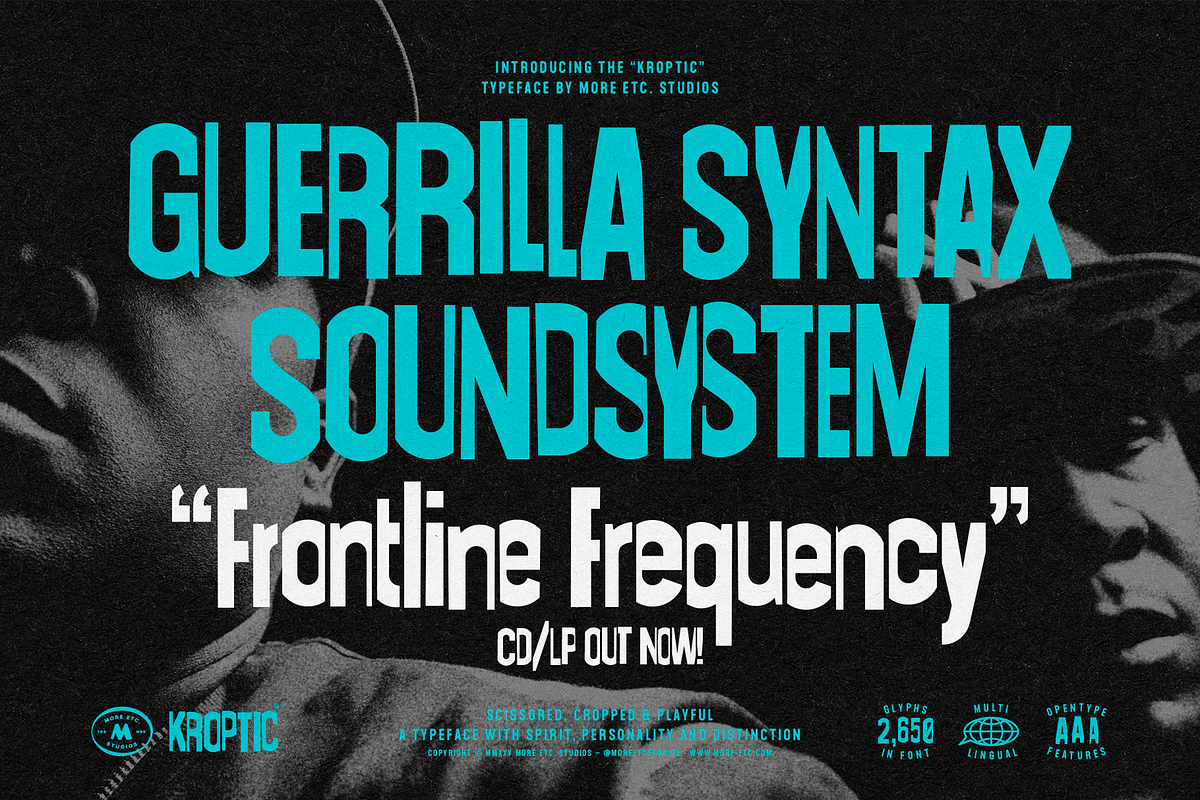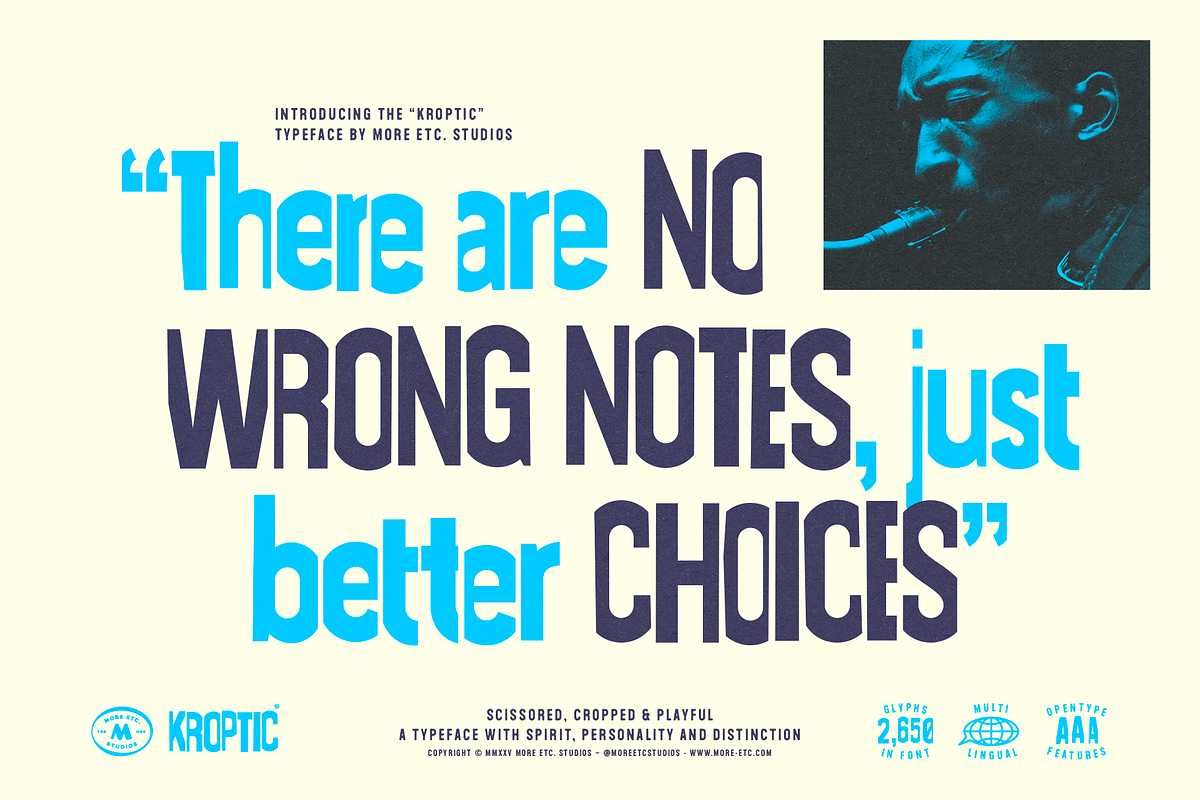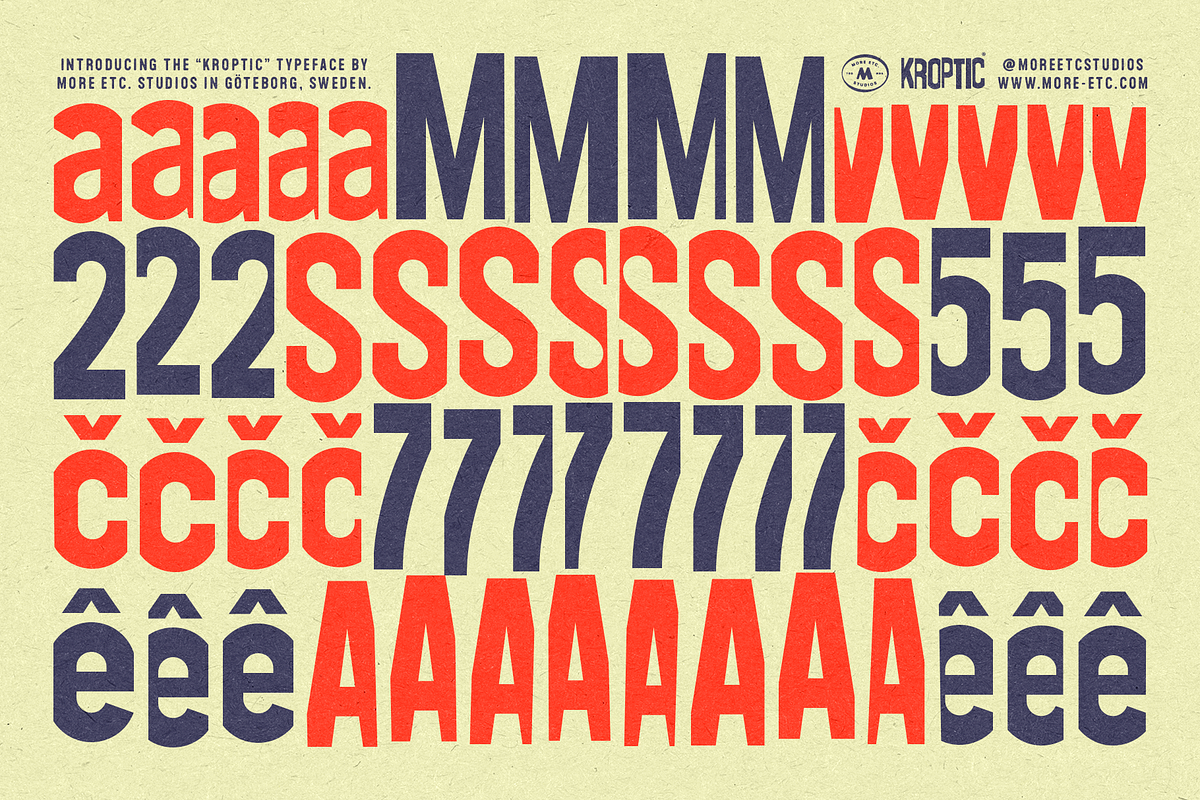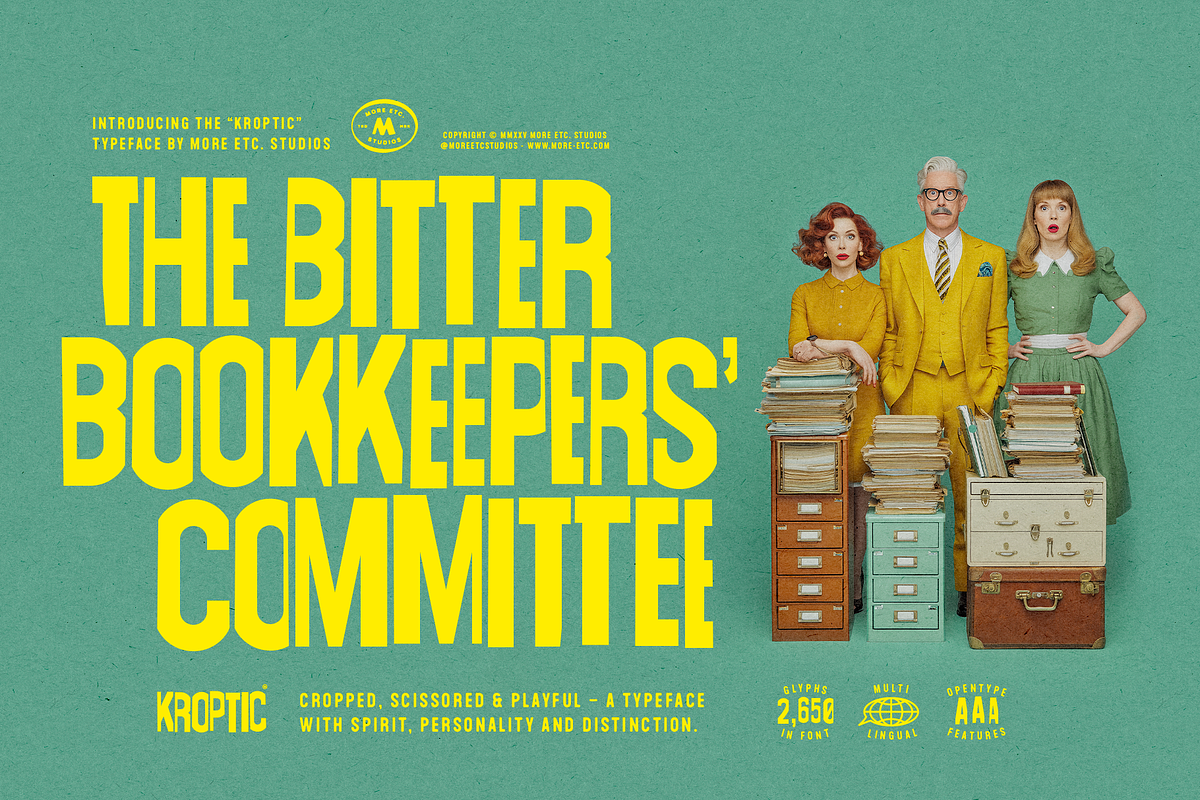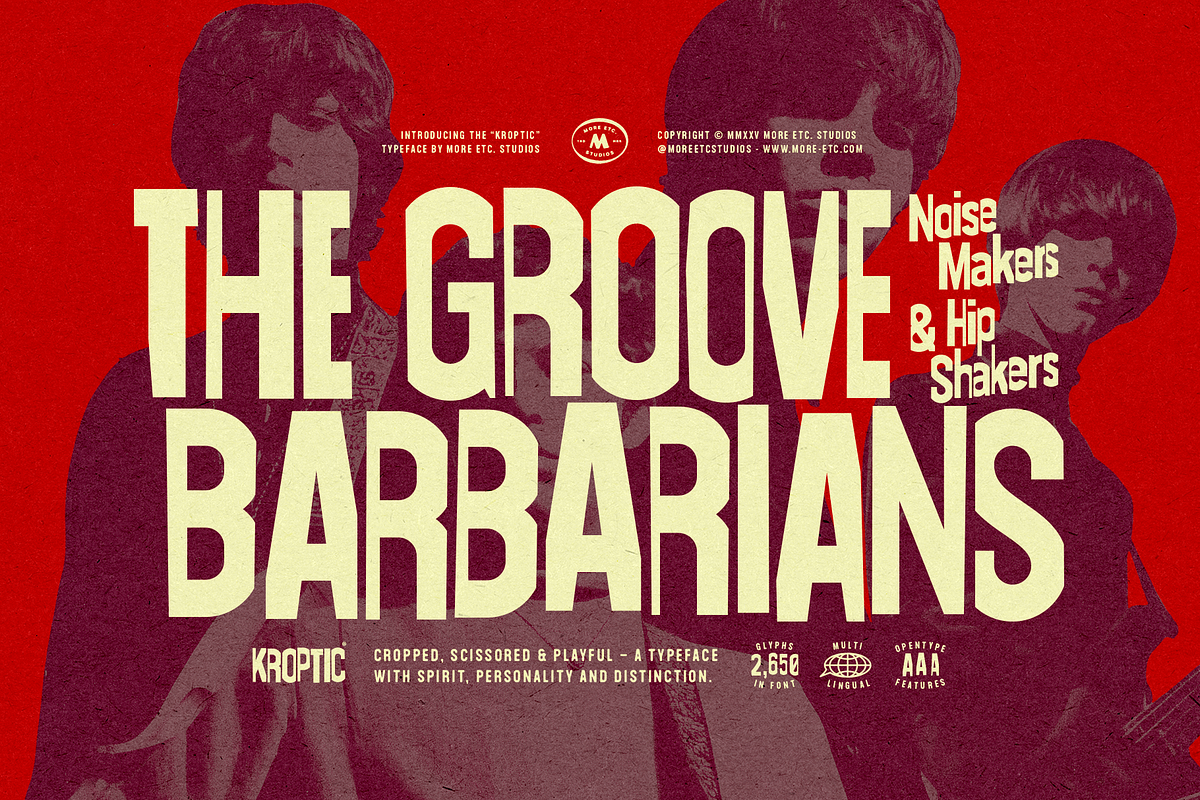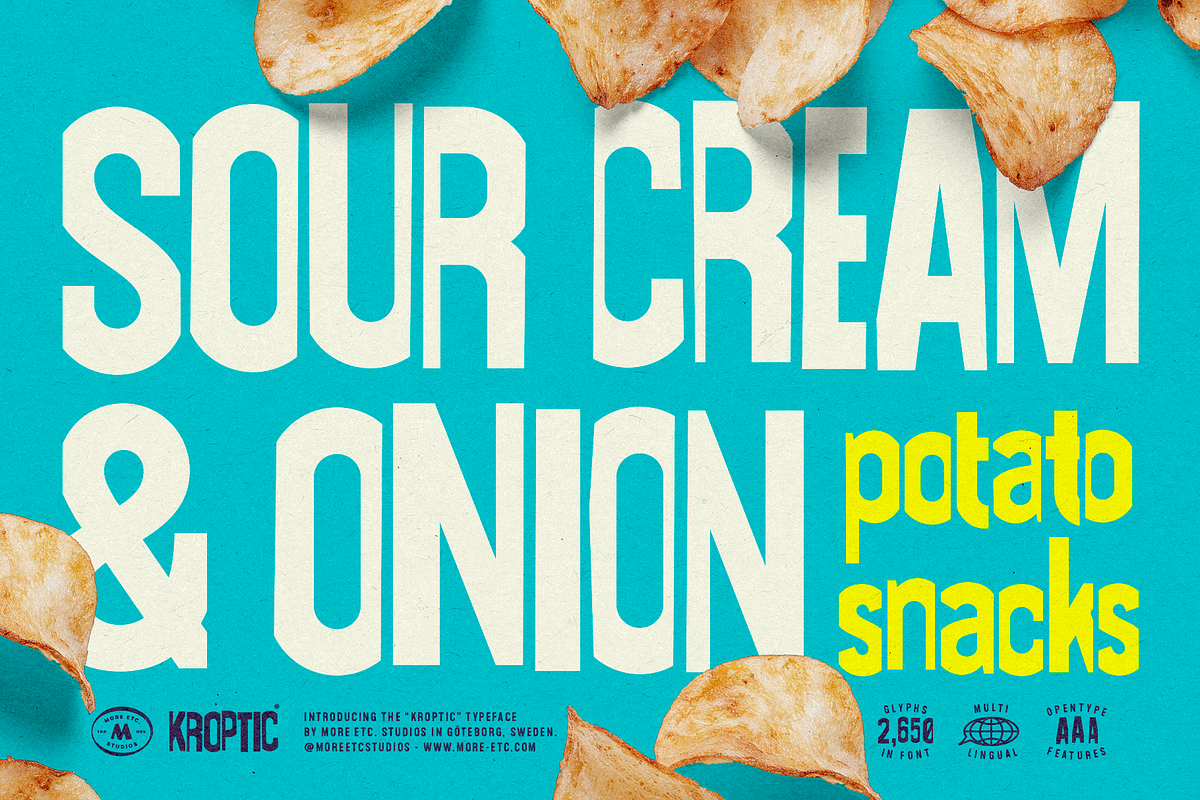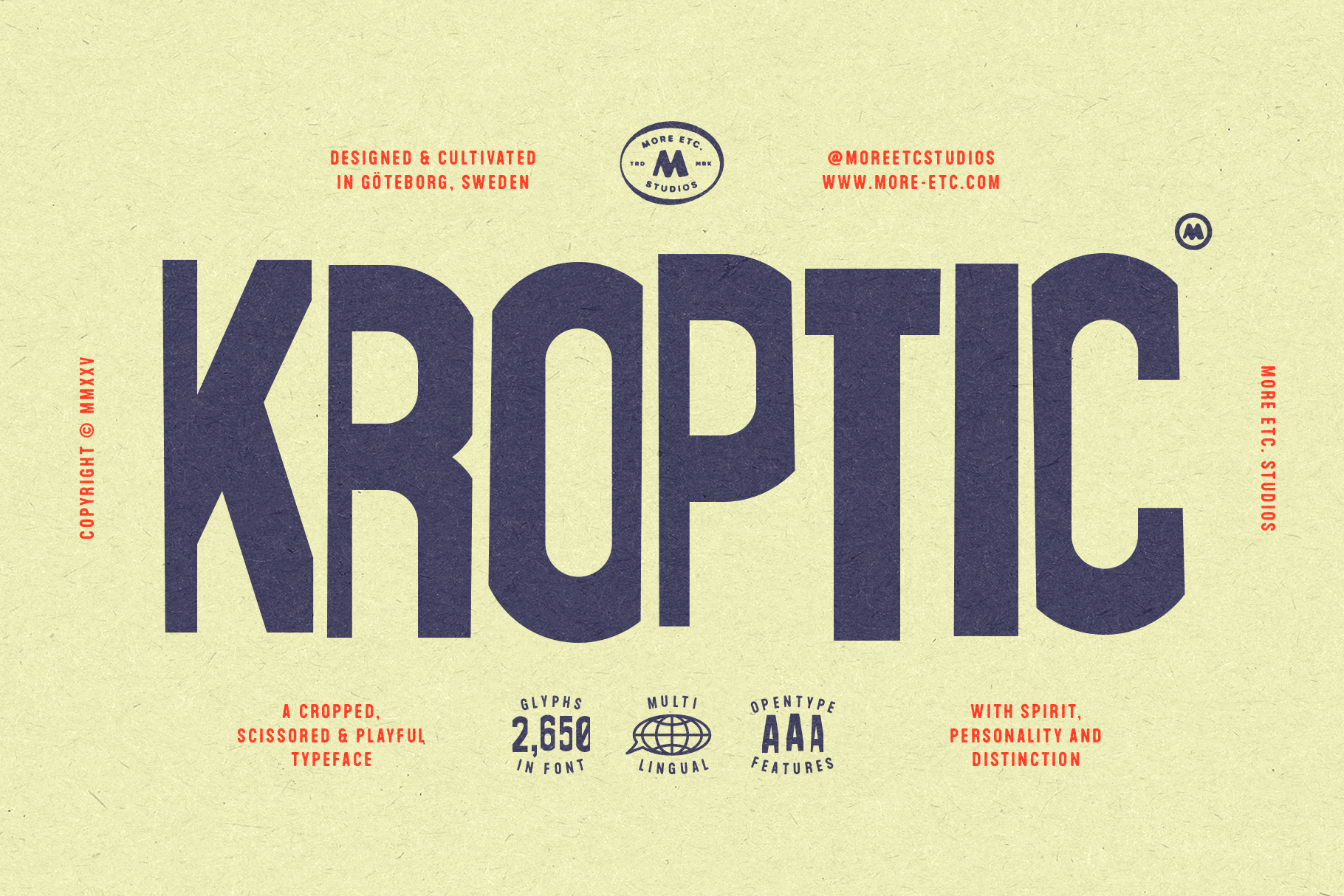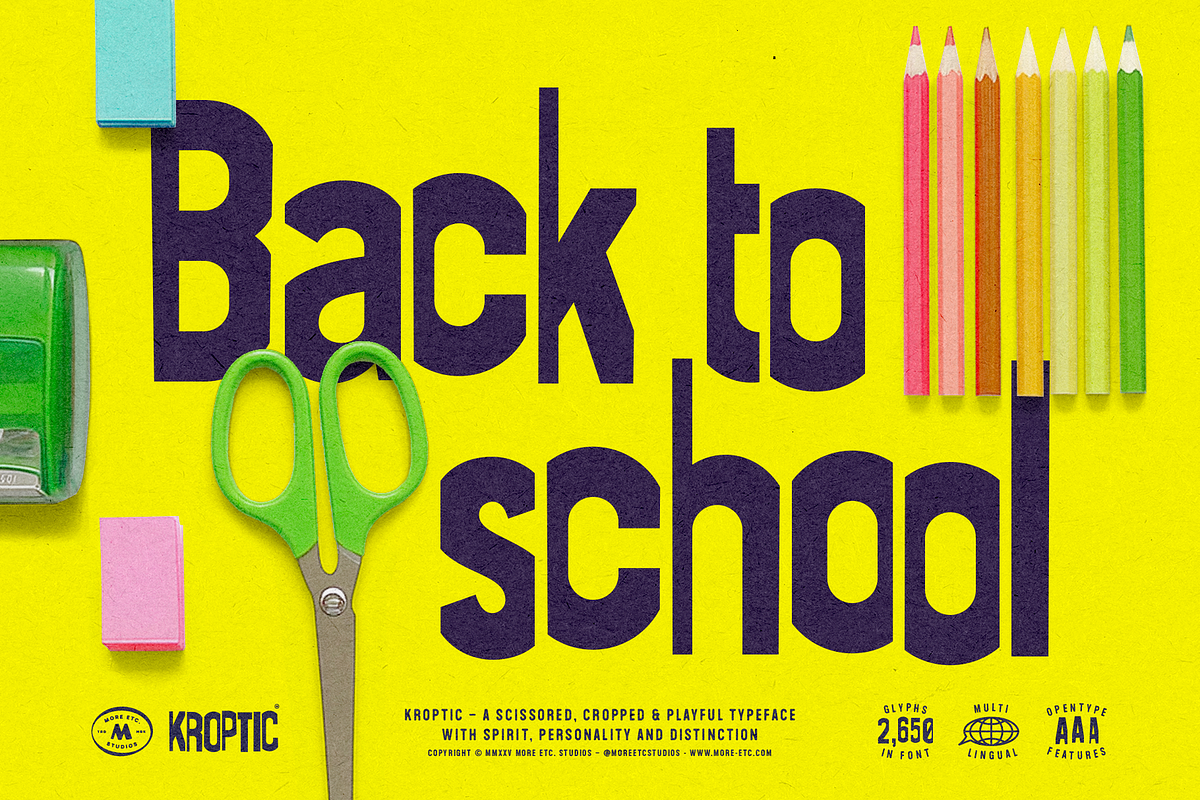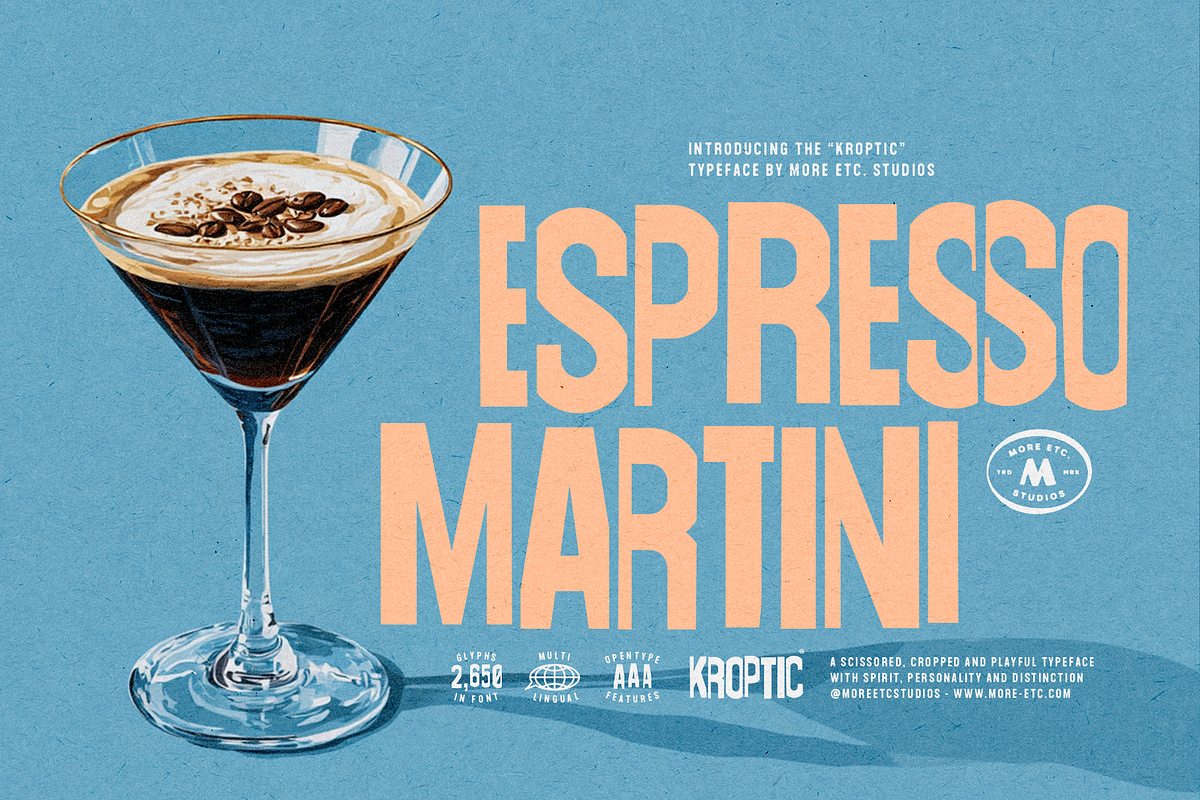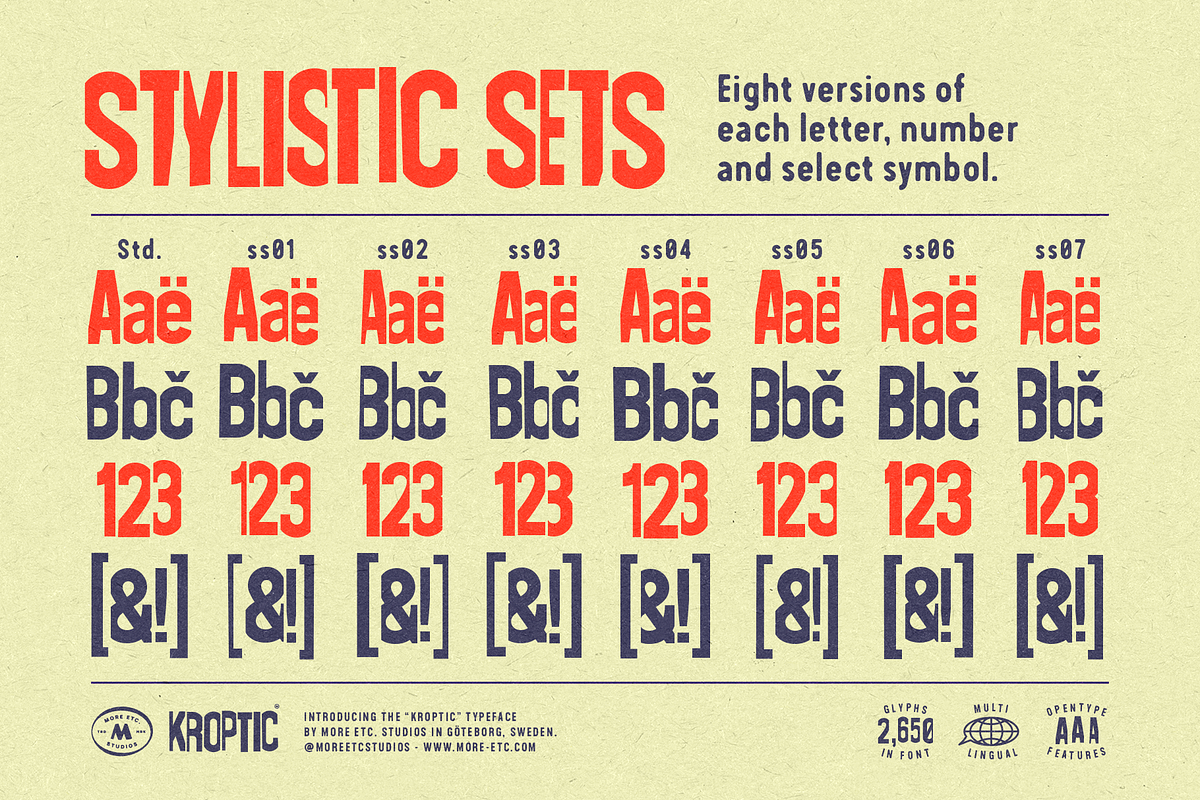
Kroptic – Playful Display Font
Kroptic is a display typeface with a focus on playfulness, character and rhythm. Its cropped, cut-out aesthetic is inspired by avant-garde typography of the 1960s, reimagined for contemporary design. With its lively forms and dynamic alternates, Kroptic delivers bold personality for projects that need to stand out.
In short:
- Playful display typeface with a distinctive cut-out aesthetic
- 2,600+ glyphs included
- Every letter, numeral and select symbols come in 8 unique versions
- Premium OpenType feature: Advanced Contextual Alternates
- Full Latin Plus support covering 200+ languages
- Bold and vivid typeface for headlines, branding and posters
Aesthetics. Kroptic’s cut-out, scissored shapes give it a playful and spontaneous rhythm. Each letter feels as if it were manually trimmed, cropped and reassembled, creating a sense of movement and surprise in the text flow. This visual foundation makes Kroptic ideal for bold applications such as posters, editorial titles, branding and packaging design.
Language Support. The character set includes over 2,600 glyphs and a wide range of diacritics, offering full Latin Plus support and covering more than 200 Latin-based languages worldwide. Kroptic combines expressive personality with professional versatility, ready for use in international projects.
Advanced Contextual Alternates. What makes Kroptic truly unique is its advanced contextual alternates. Every letter, numeral and select symbols exist in 8 visually distinct versions – one default and seven alternates. An advanced OpenType feature automatically substitutes between these versions as you type, creating text that feels alive, irregular and handcrafted. The system avoids repetition and introduces a natural randomness that mirrors analog lettering, while still giving designers manual control through stylistic sets. Available in any professional design software that supports the OpenType “Contextual Alternates” feature.
Premium Typeface. Kroptic blends playful design, advanced typographic logic and extensive language support in a premium type system. More than just a font, it’s a creative instrument built for visual impact. With its bold voice and dynamic rhythm, Kroptic elevates projects across branding, music, fashion, culture and beyond.